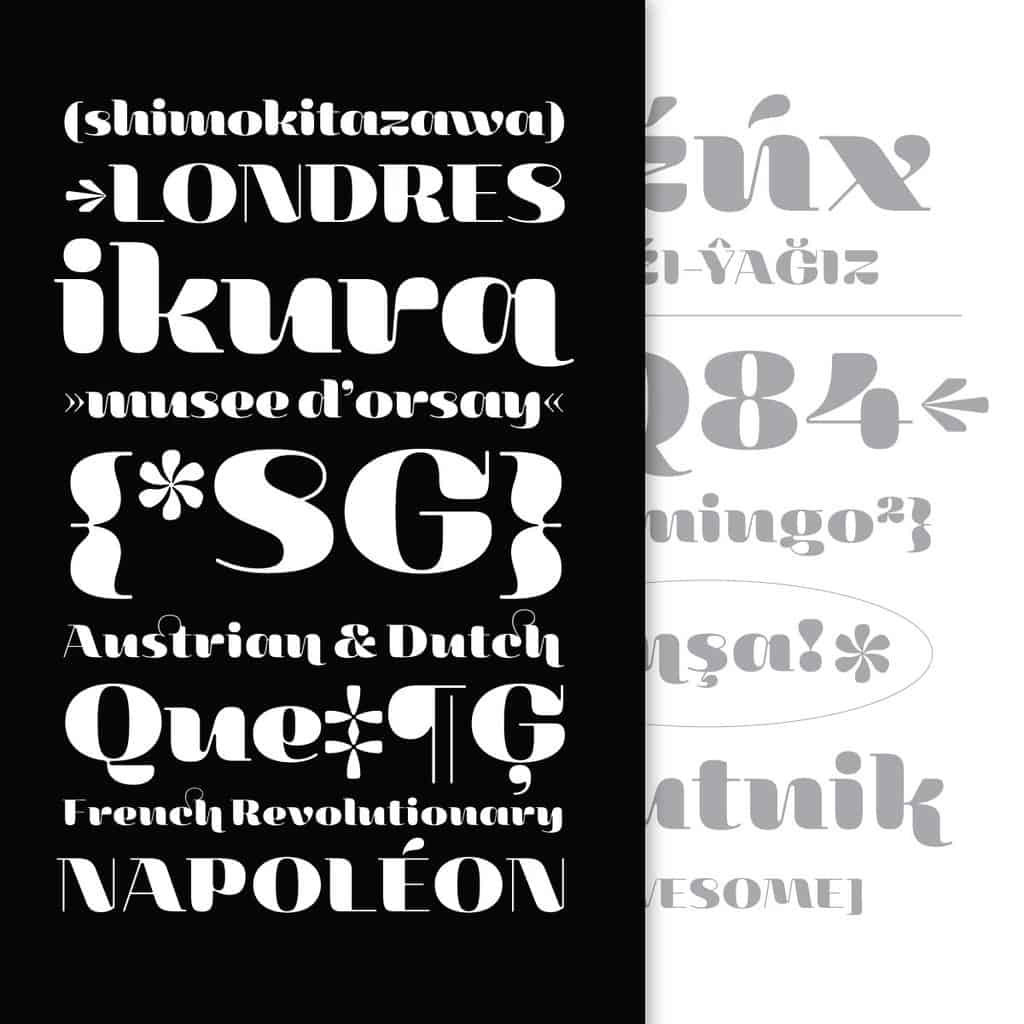
Emile Display
Emile Display is a bold celebration of the quirkiness of letterforms. Strongly inspired by brush calligraphy, Emile explores the boundaries of tools used in the writing process alongside the possibilities and potential of different shapes.
With its exaggerated contrast and spontaneous strokes blended with rounded shapes, Emile stands out of the crowd with a friendly feel; resulting in a charming, unconventional approach to the traditional serif type. Emile is best suited to headlines, but also works beautifully in text settings.
- Total glyph set: 631
- Uppercase & lowercase
- Numbers
- Diacritics
- Punctuation
- Stylistic Alternates
- Basic Ligatures
- Extra Ligatures
- Fractions
- Superscript
- Subscript